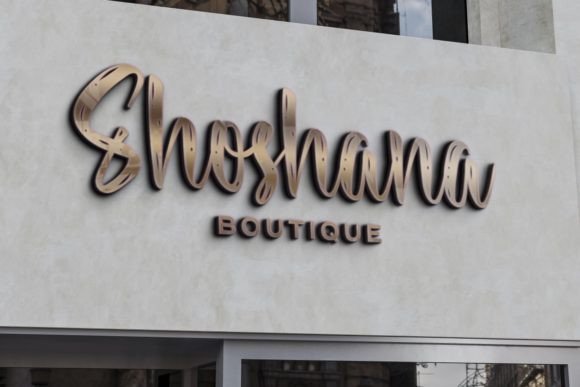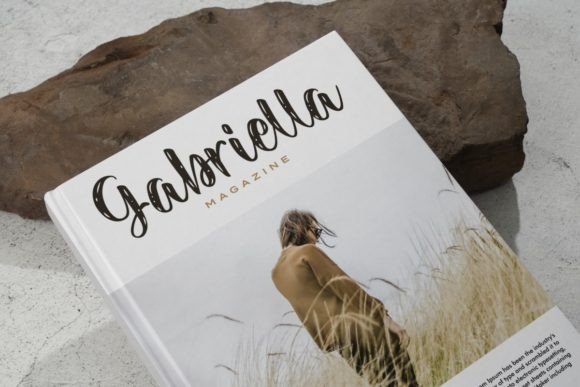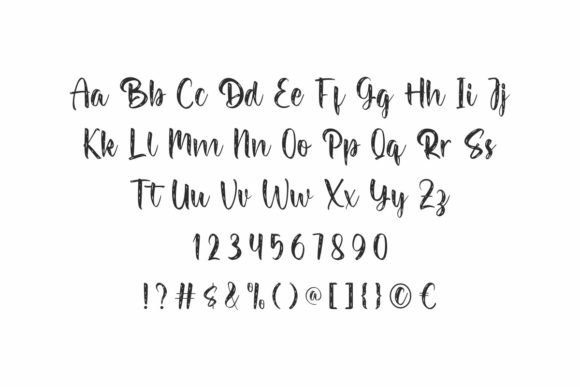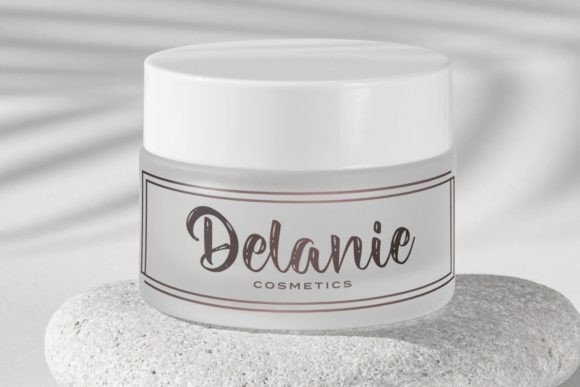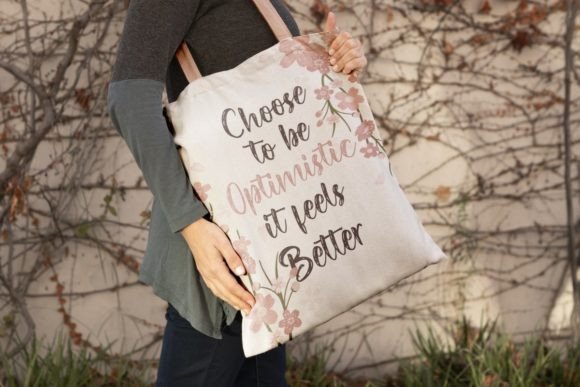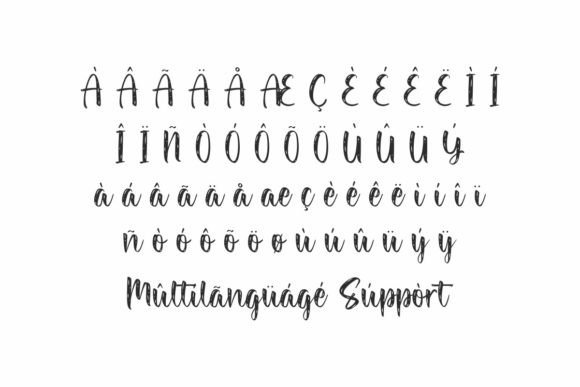
Unleash Your Creativity with Distract Switch Font: A Textured Brush Script Font by VinType
Are you tired of using the same old fonts in your designs? Do you want to add a touch of uniqueness and charm to your projects? Look no further than the Distract Switch Font, a textured brush script font designed by VinType. This font is carefully crafted to add a new level of excitement to your designs, making them stand out from the crowd.
What is Distract Switch Font?
Distract Switch Font is a textured brush script font that boasts a unique rough look, giving it a distinctive charm. The font is designed to add a touch of personality to your designs, making them more engaging and visually appealing. With its textured brush strokes, this font is perfect for creating designs that require a personal touch.
Features of Distract Switch Font
- Unique Texture: The Distract Switch Font features a unique textured brush stroke that gives it a rough, hand-crafted look.
- Script Style: This font is a script font, making it perfect for creating elegant and sophisticated designs.
- Versatile: The Distract Switch Font is versatile and can be used for a wide range of design projects, from packaging design to quote art.
- Easily Readable: Despite its textured look, the Distract Switch Font is easily readable, making it perfect for body text and headlines.
Uses of Distract Switch Font
The Distract Switch Font is perfect for a wide range of design projects, including:
- Box Jewelry: Add a touch of elegance to your jewelry packaging with the Distract Switch Font.
- Magazine Catalog: Use this font to create eye-catching headlines and titles for your magazine catalog.
- Packaging Design: The Distract Switch Font is perfect for creating labels, tags, and other packaging materials.
- Quote Art: Use this font to create inspiring quote art that will motivate and inspire your audience.
- Screen Printing: The Distract Switch Font is perfect for screen printing, making it ideal for creating custom t-shirts, hoodies, and other apparel.
- Signage: Use this font to create eye-catching signage that will grab the attention of your audience.
- Stationery: Add a touch of personality to your stationery with the Distract Switch Font.
Why Choose Distract Switch Font?
There are many reasons why you should choose the Distract Switch Font for your design projects. Here are a few:
- Unique Look: The Distract Switch Font has a unique look that will set your designs apart from the crowd.
- High-Quality: This font is designed with high-quality in mind, making it perfect for professional designs.
- Easily Customizable: The Distract Switch Font is easily customizable, making it perfect for designers who want to add their own personal touch.
In conclusion, the Distract Switch Font is a textured brush script font that is perfect for designers and crafters who want to add a touch of uniqueness and charm to their designs. With its unique texture, script style, and versatility, this font is perfect for a wide range of design projects. Whether you’re creating packaging design, quote art, or signage, the Distract Switch Font is sure to make your designs stand out from the crowd.